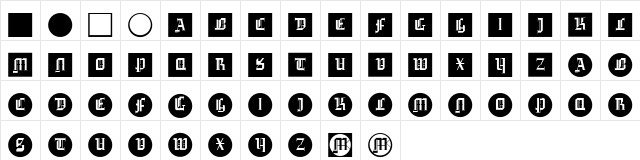
GotikaButtonsOne Regular
Design Context for GotikaButtonsOne Typeface
GotikaButtonsOne is a composed and adaptable typeface that performs quietly and consistently across a wide range of design contexts.